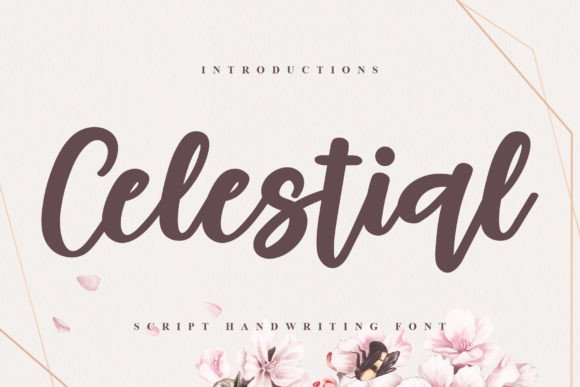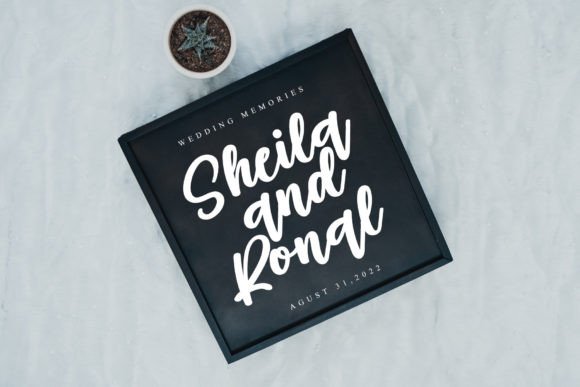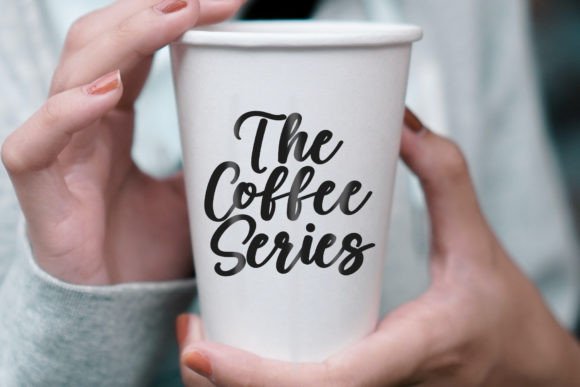
About Celestial Font
**”Celestial”** is an incredible and playful handwritten font that possesses the power to add a special and unique touch to a wide range of creative projects. With its masterful design, this font has the potential to become a favorite choice for designers and individuals looking to elevate their creative ideas to new heights. Here are some key features and potential uses for the “Celestial” font:
1. **Playful and Unique:** “Celestial” exudes a playful and unique charm that sets it apart. Its distinctive style can make your designs stand out and capture attention.
2. **Versatile Application:** This font can be applied to a wide variety of projects, from branding and logo design to posters, packaging, social media graphics, and more.
3. **Special Touch:** Use “Celestial” to add a special touch to your creative projects, infusing them with a sense of creativity and originality.
4. **Typography for Impact:** When applied to headlines, titles, and typography elements, this font can create a memorable and impactful visual experience.
5. **Creative Freedom:** “Celestial” offers creative freedom and the potential to explore unique design possibilities, making it a valuable resource for designers and artists.
6. **High-Level Creativity:** With “Celestial,” you can take your creative ideas to the highest level, enhancing their visual appeal and artistic expression.
In essence, **”Celestial”** is a font that invites you to explore new creative horizons. Its playful and unique qualities, combined with its versatility, make it a valuable tool for designers and individuals seeking to infuse their projects with creativity and a sense of wonder, ensuring that their creative ideas shine with brilliance and originality.